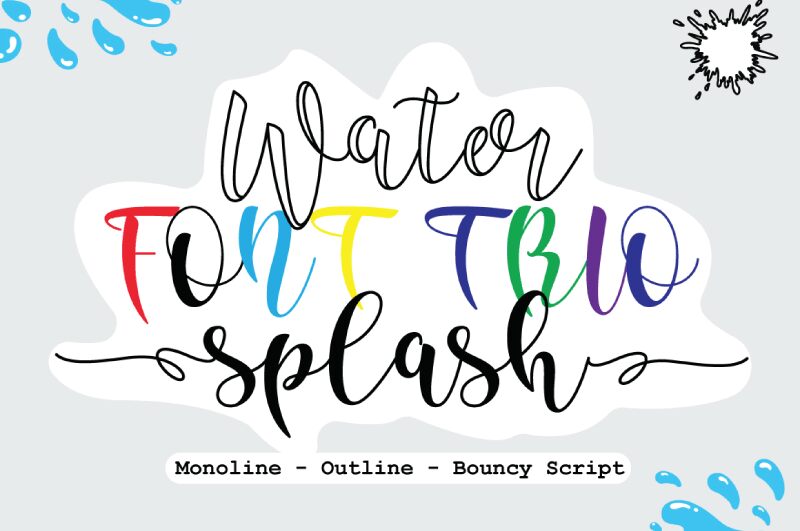
Water Splash Script, designed by Miftah Arzaq, exudes the fluidity and grace of water in motion. This handwritten style font captures the spontaneous energy of a painter's brush, dancing across the page with lively strokes and playful loops. Each letter seems to tell a story, making it ideal for projects that require a personal touch.
Its aesthetic appeal lies in its organic texture and rhythm, reminiscent of ink splattering gently onto paper. This font is perfect for invitations, branding, and advertising where a touch of elegance is needed to elevate the design. Water Splash Script invites readers into an intimate world crafted by the artistry of its creator-a world where each character is infused with life and vibrance.